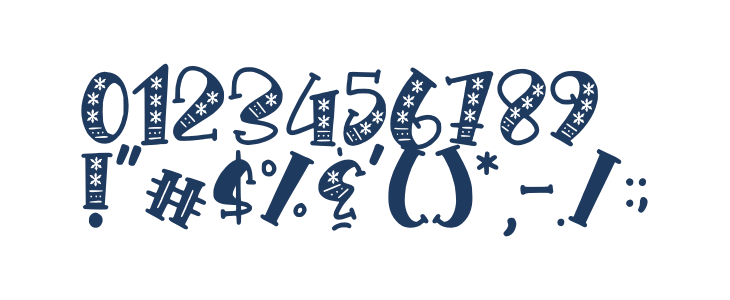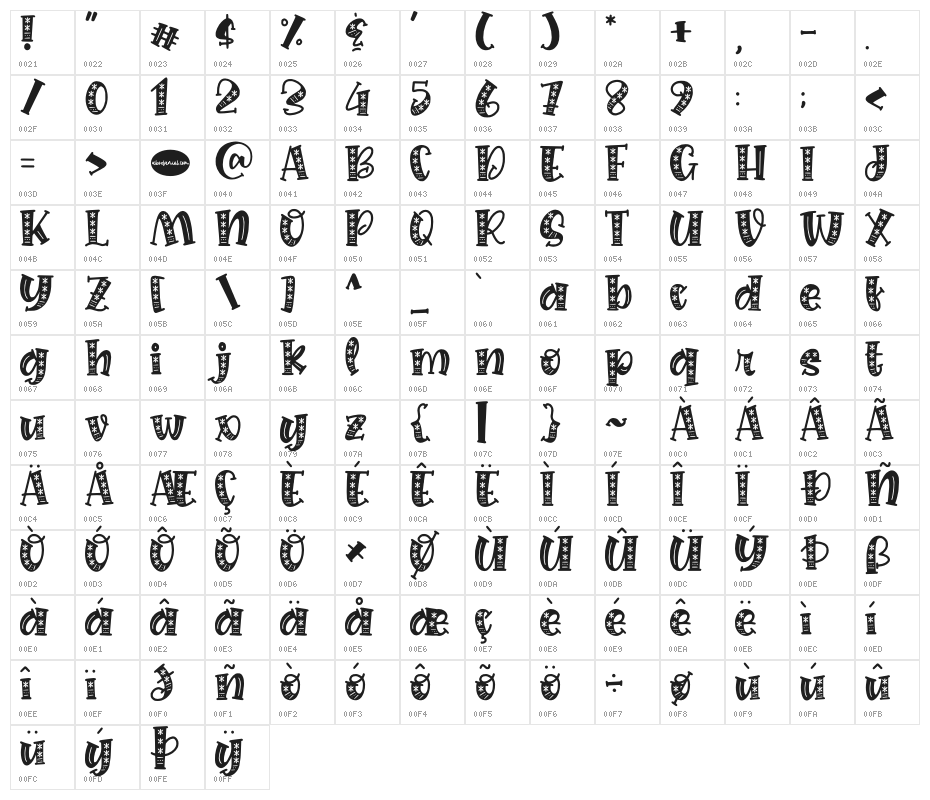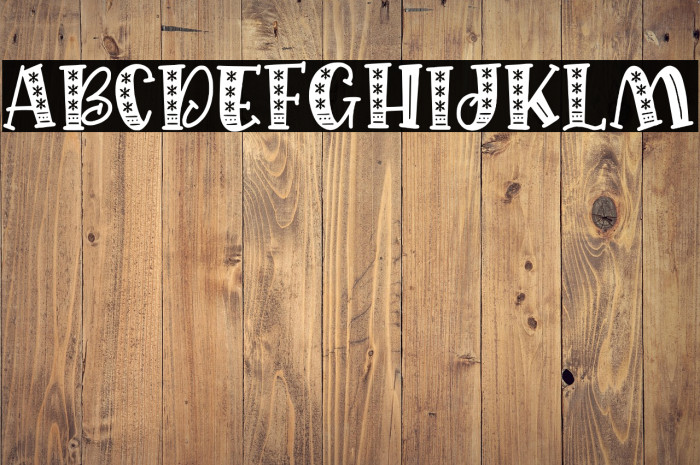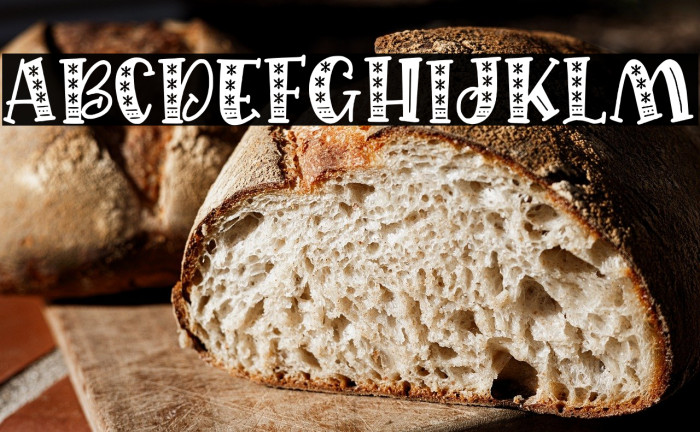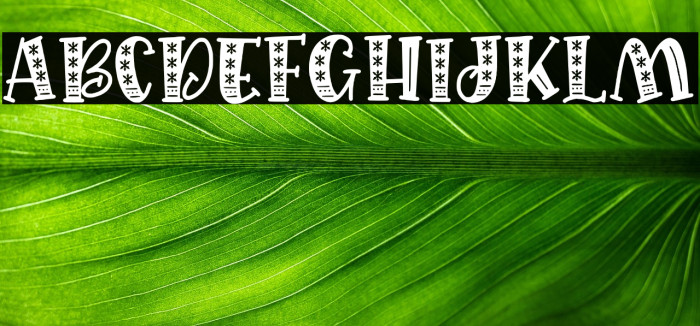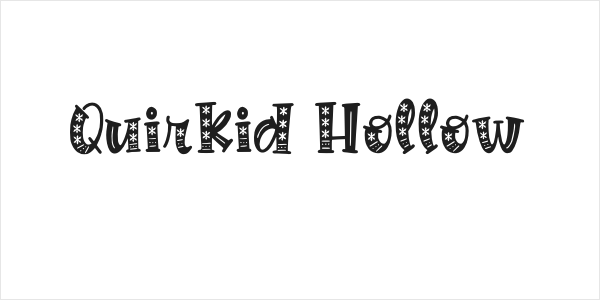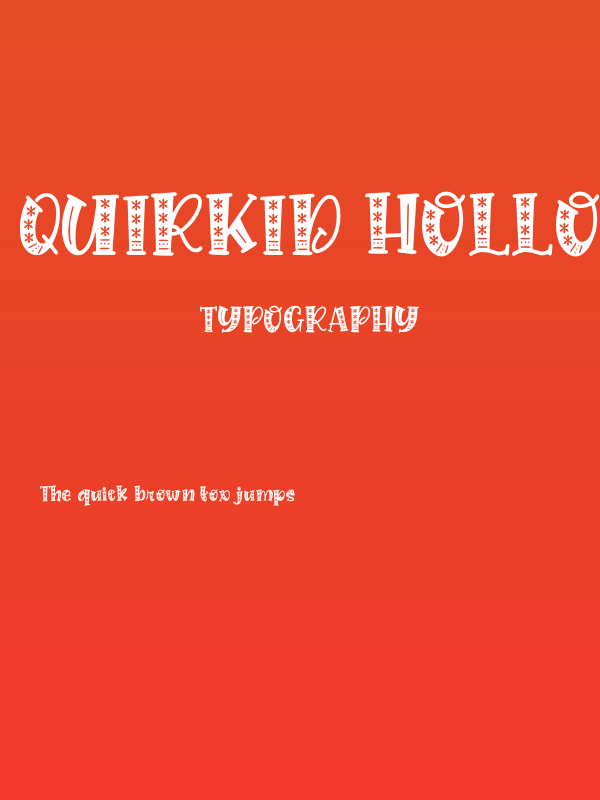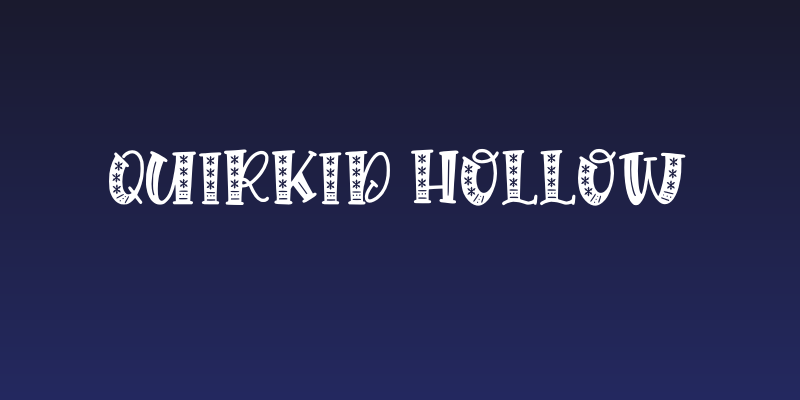
Quirkid Hollow Font
Quirkid Hollow Description
This playful and decorative font features bold, hollow characters adorned with whimsical star patterns. The uppercase and lowercase letters maintain a consistent style, with a unique flair that adds a touch of fun and creativity. The numbers and special characters follow the same design, making the font cohesive and versatile. Its bold strokes and decorative elements make it stand out, perfect for projects that require a lively and engaging typeface.
| Overall Style | Playful, Decorative |
| Proposed Projects | Ideal for children's books, party invitations, playful branding, and creative posters. |